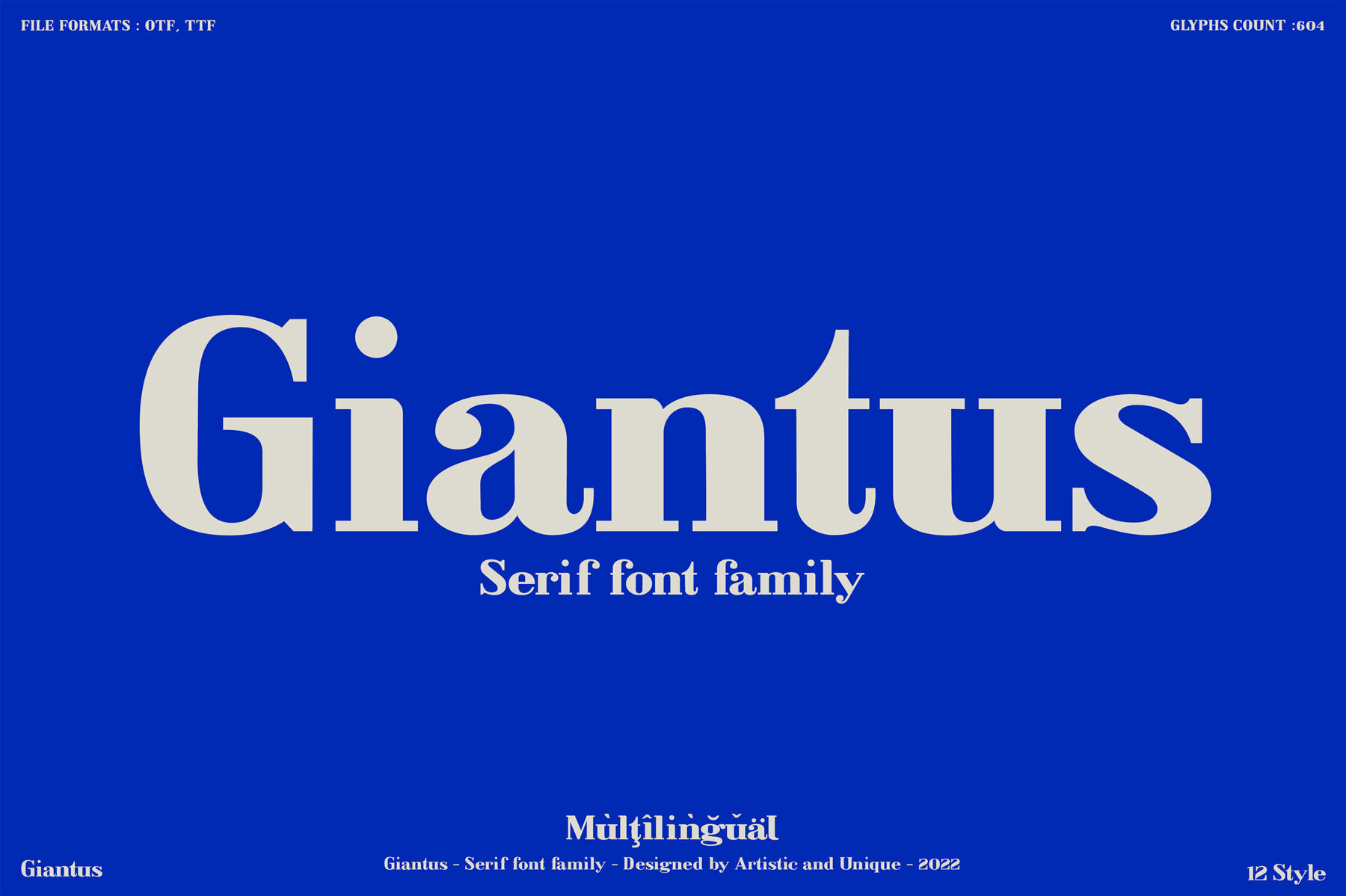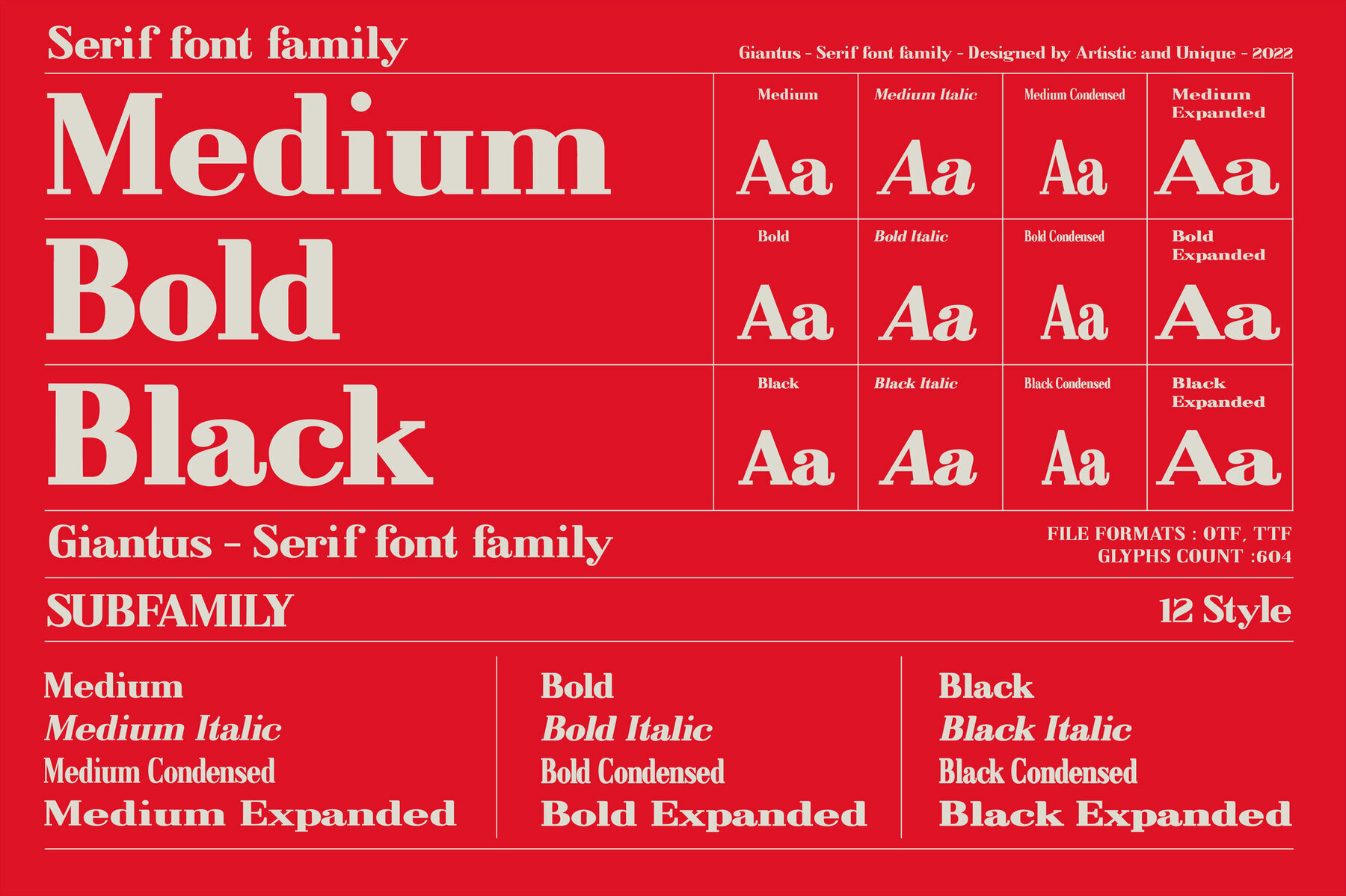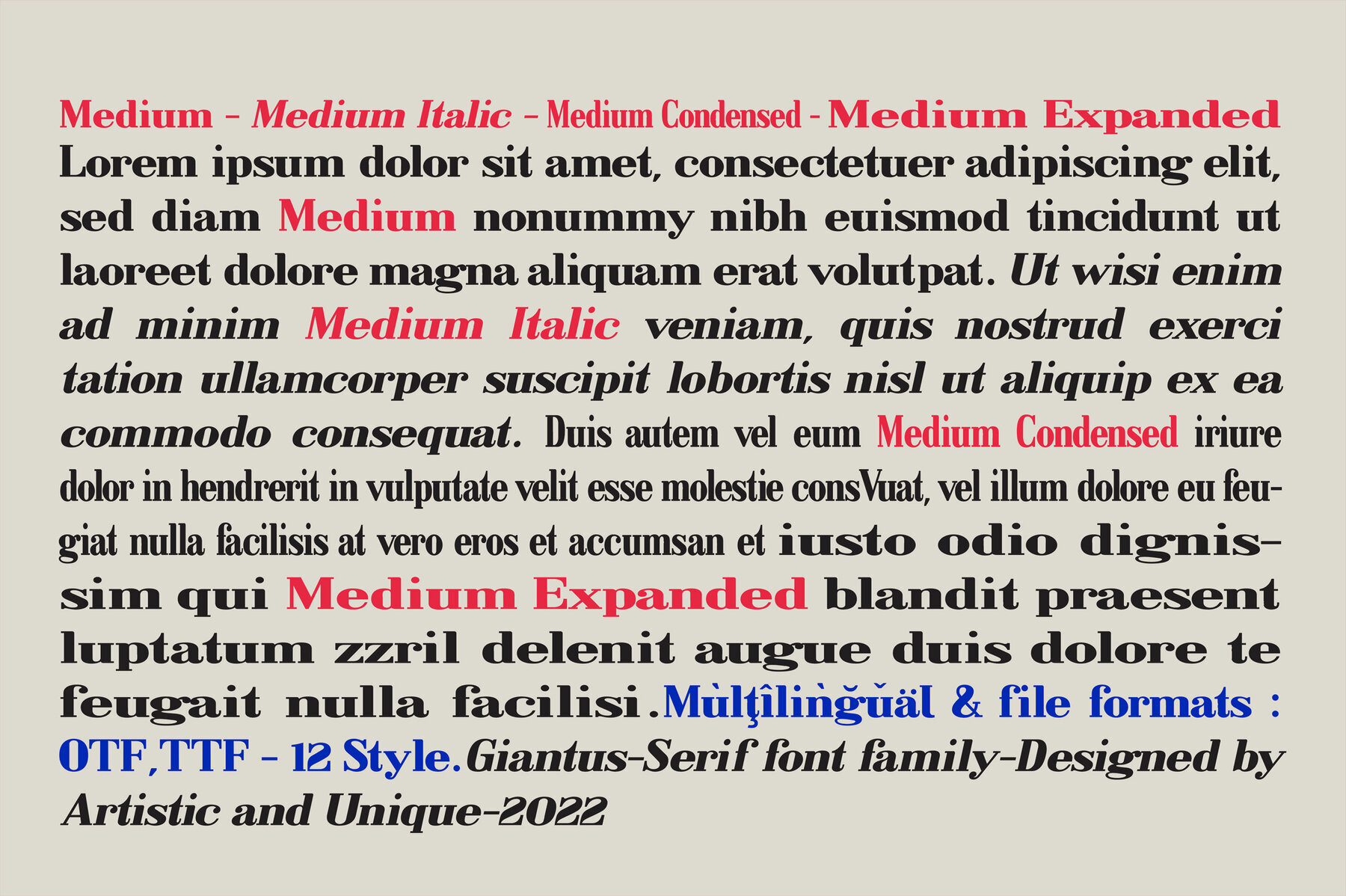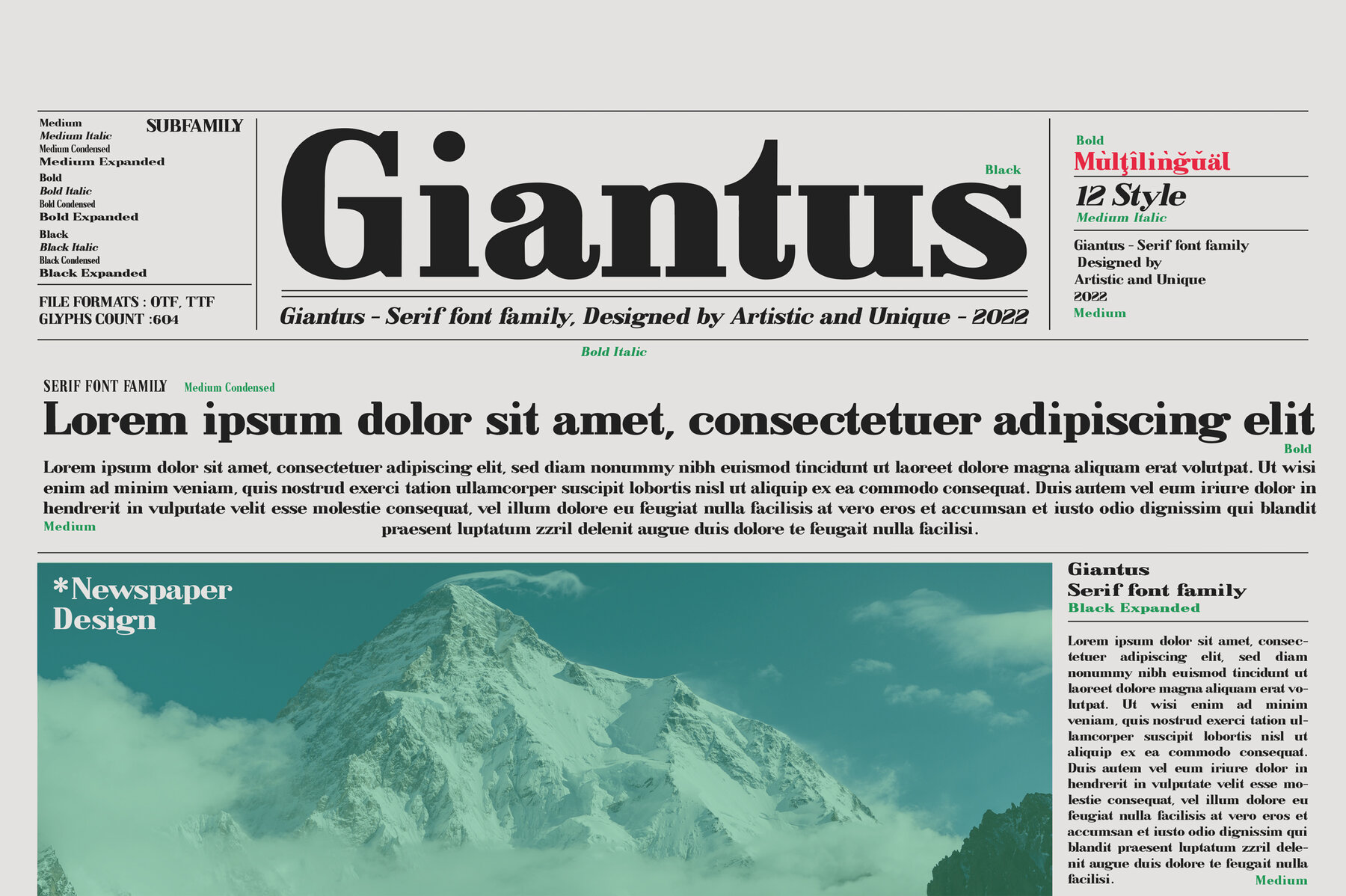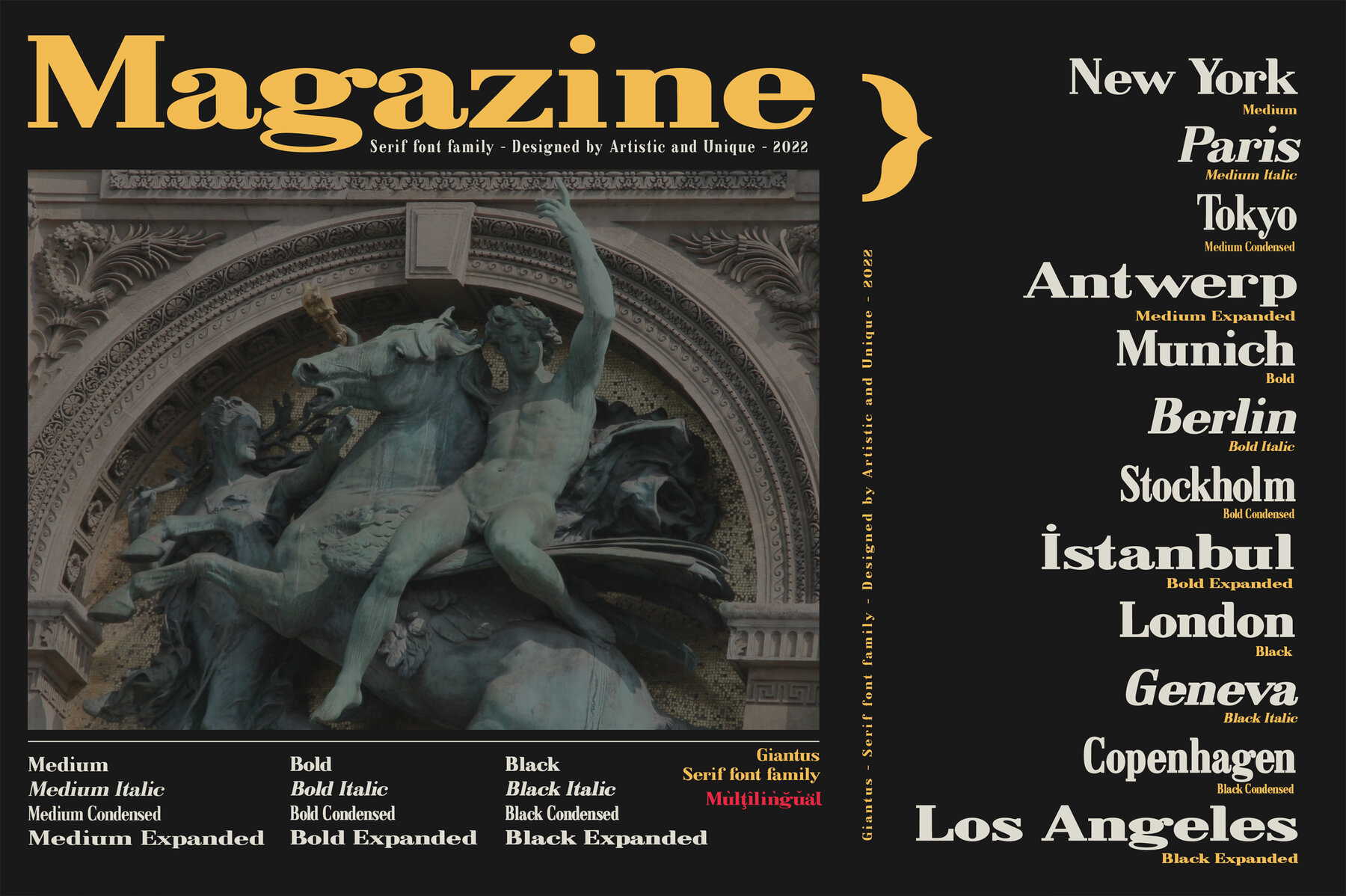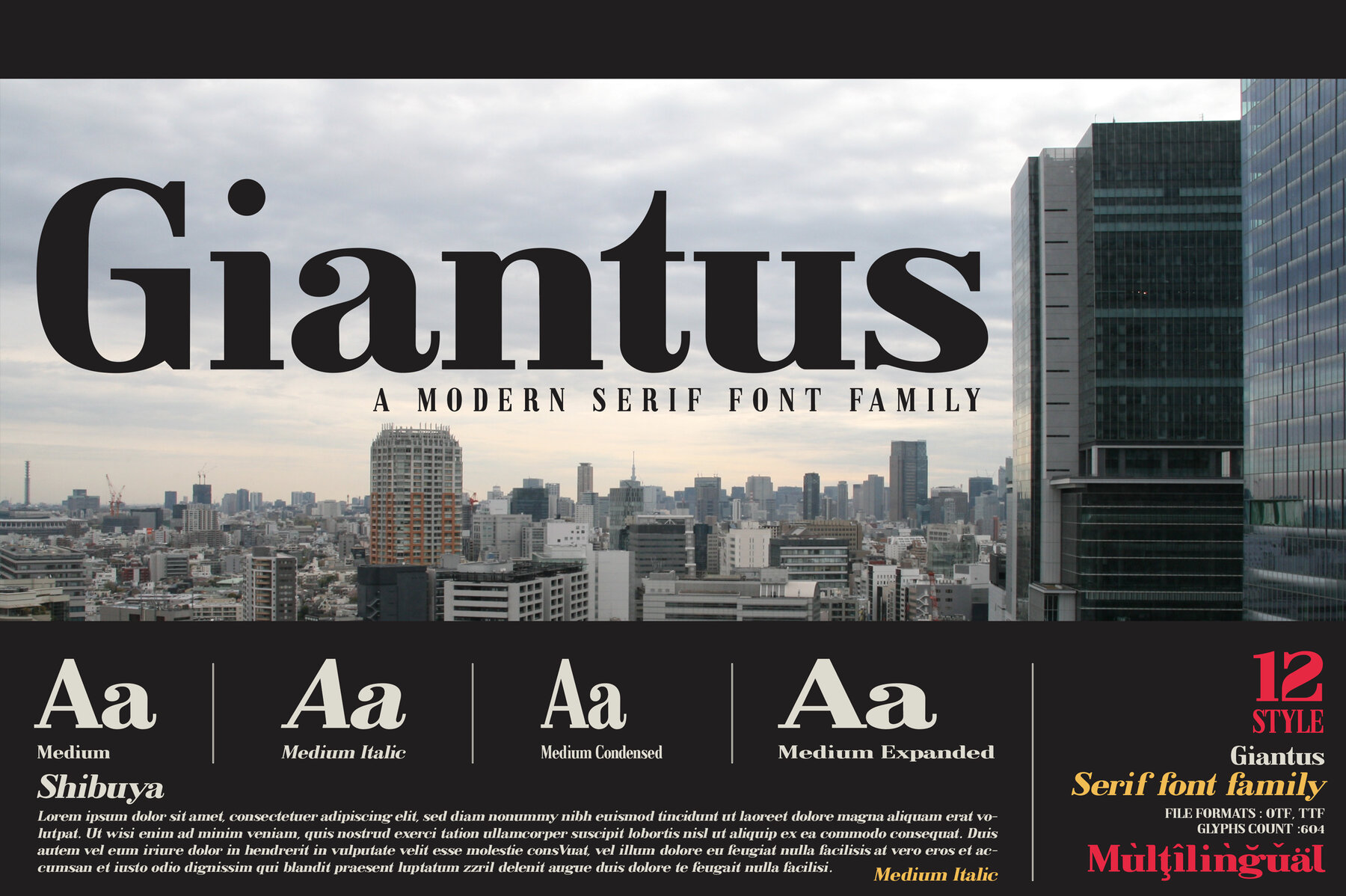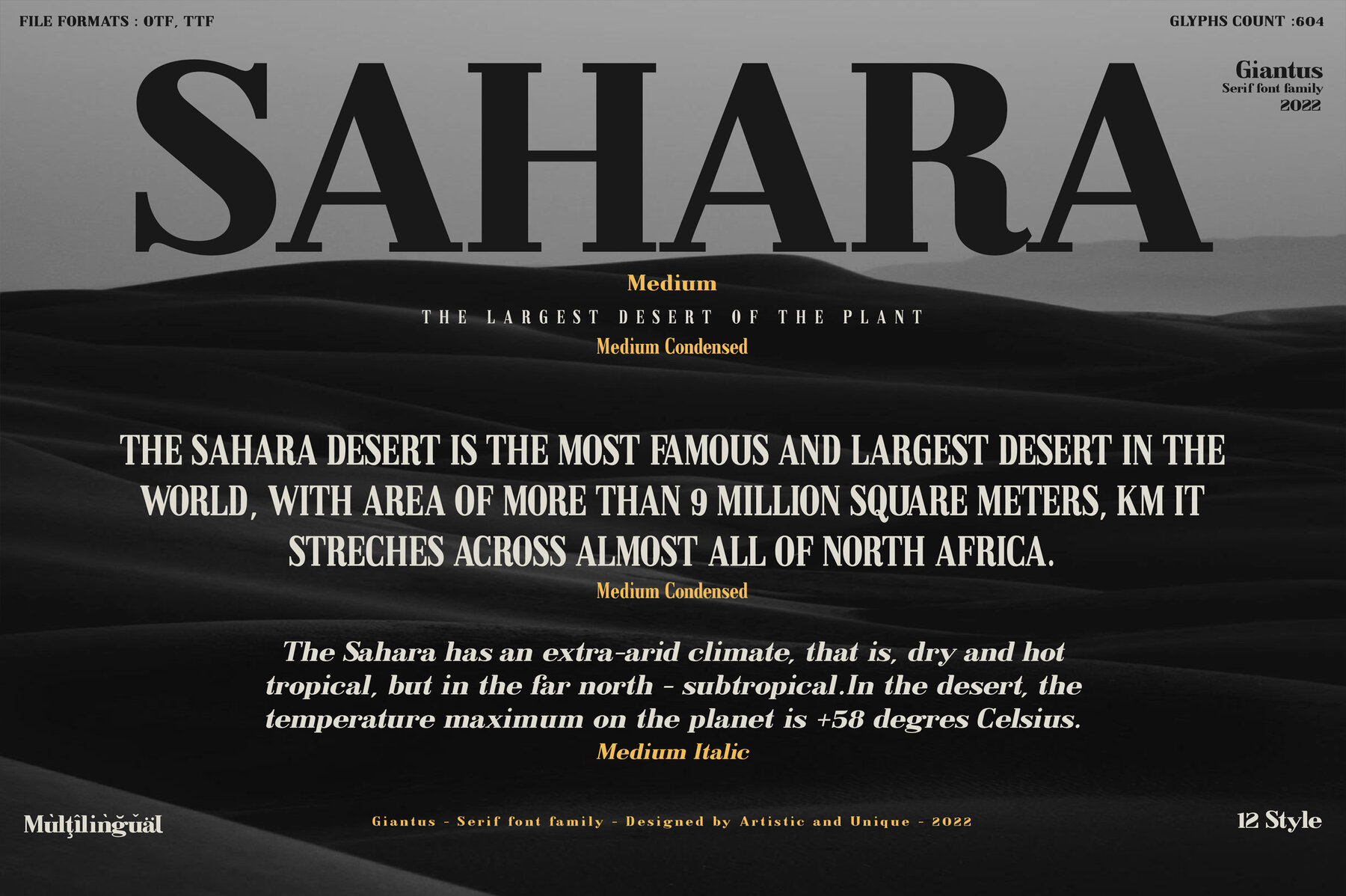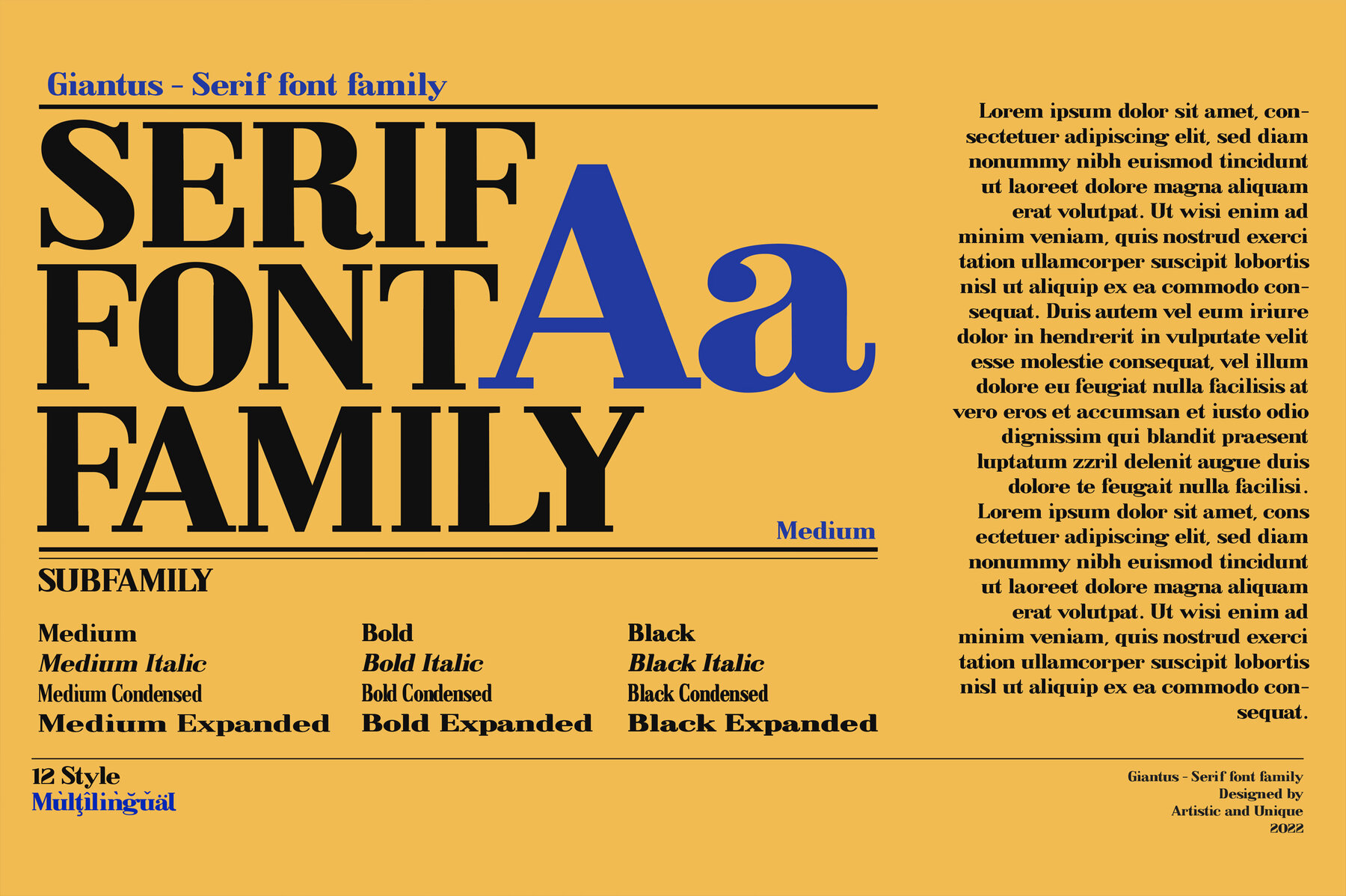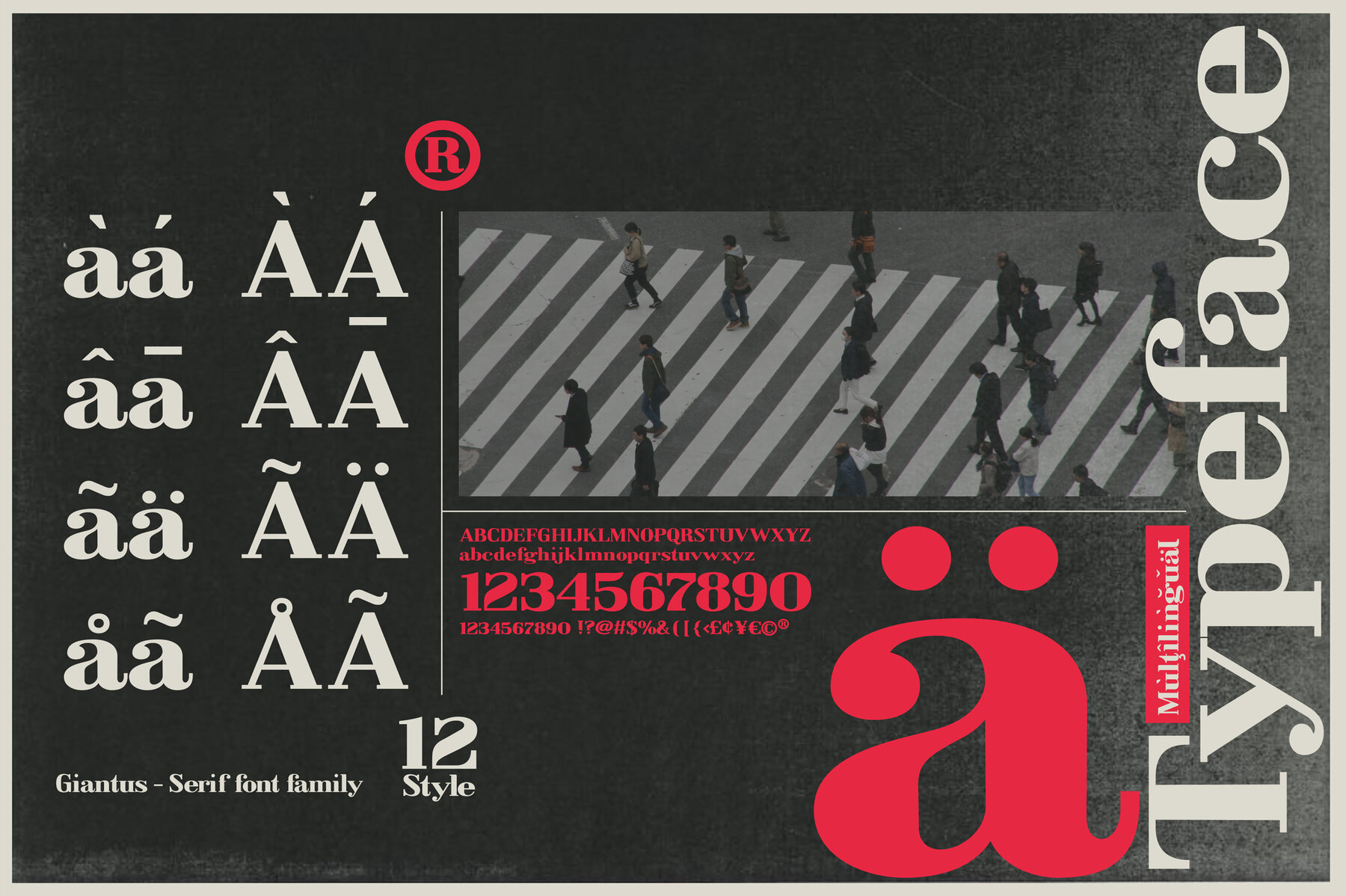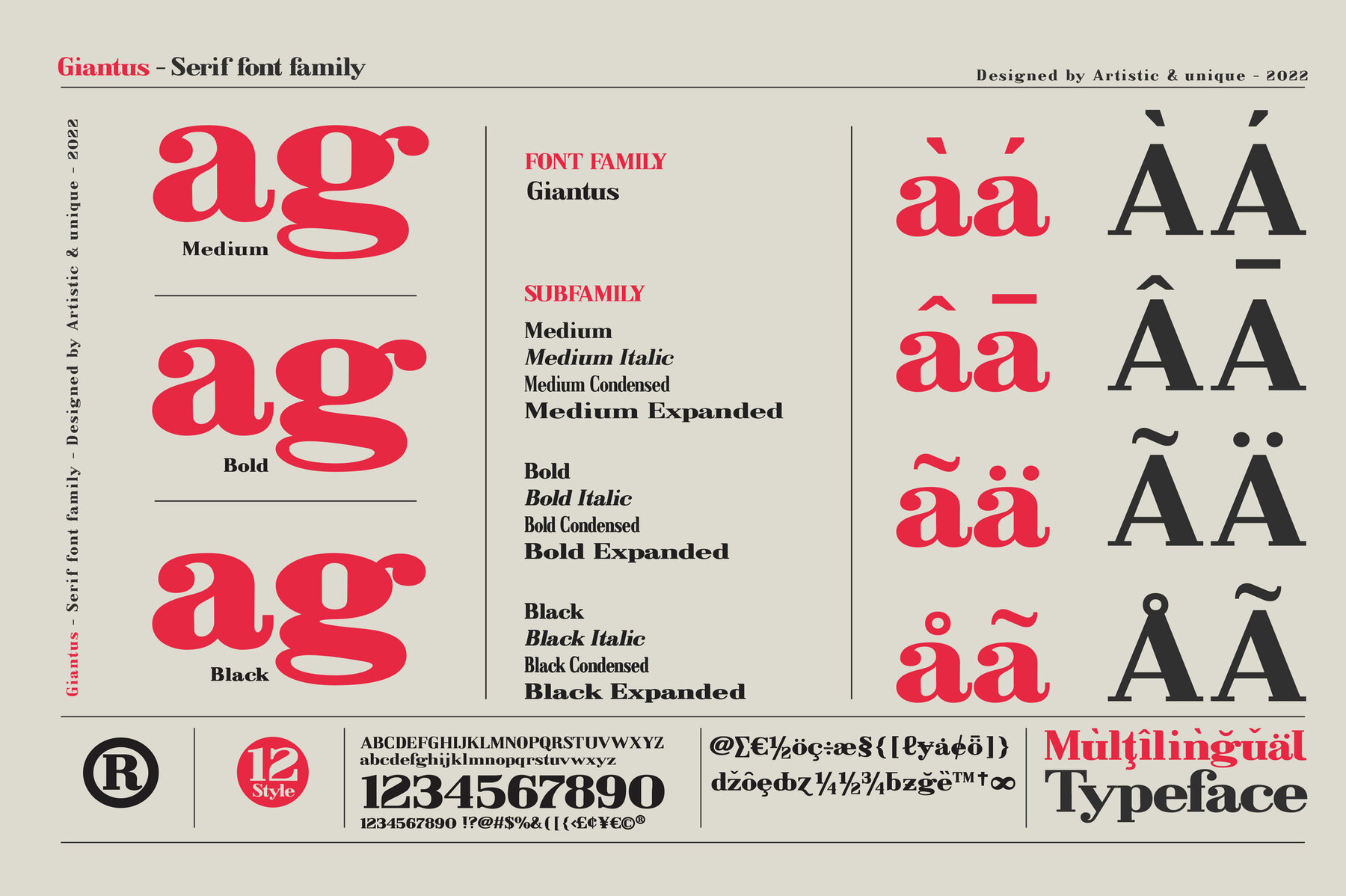
Giantus Font
Introducing Giantus, a stunning serif font family ideal for modern design. With 12 distinctive styles and extensive multilingual support, Giantus offers unmatched versatility. The diverse character design accommodates innovative pursuits, making it perfect for a wide range of creative projects. Giantus shines in books, magazines, editorials, and headlines. It's also an excellent choice for websites, logos, branding, and advertising. Create unique, elegant designs with ease and make a lasting impression with every project using Giantus.Giantus Serif Font Family
Versatile and Timeless